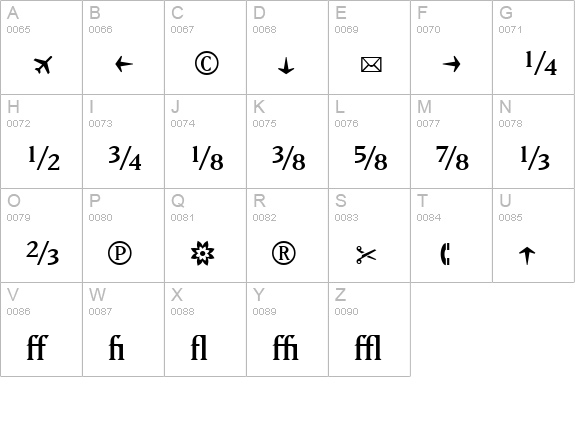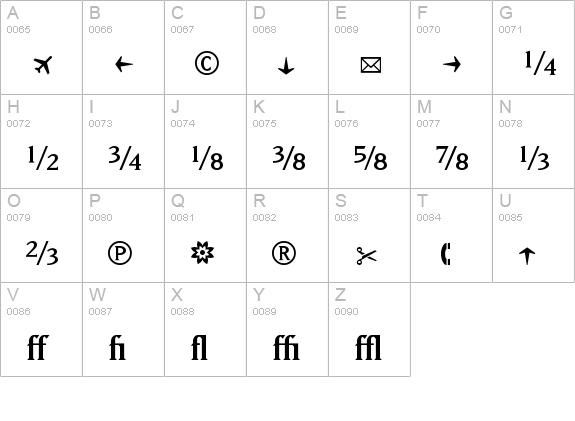
MatrixRegularFractions Regular Font Details
MatrixRegularFractions Regular is the standard, neutral variant in the MatrixRegularFractions typeface family \xE2\x80\x94 well suited to general body text, paragraphs, and standard typographic work.
MatrixRegularFractions Regular font is a modern and versatile typeface that is perfect for all your design needs. With its clean lines and elegant curves, this font is sure to make your projects stand out. Whether you're working on a website, a logo, or a print design, MatrixRegularFractions Regular font will add a touch of sophistication to your work. This font includes a full set of regular fractions, making it ideal for use in mathematical and scientific documents. The fractions are designed to seamlessly integrate with the rest of the characters in the font, ensuring a cohesive and professional look. Best of all, MatrixRegularFractions Regular font is completely free to download at FontsMarket.com. So whether you're a professional designer or just looking to spruce up your personal projects, this font is a great choice. Download it today and see the difference it can make in your designs!